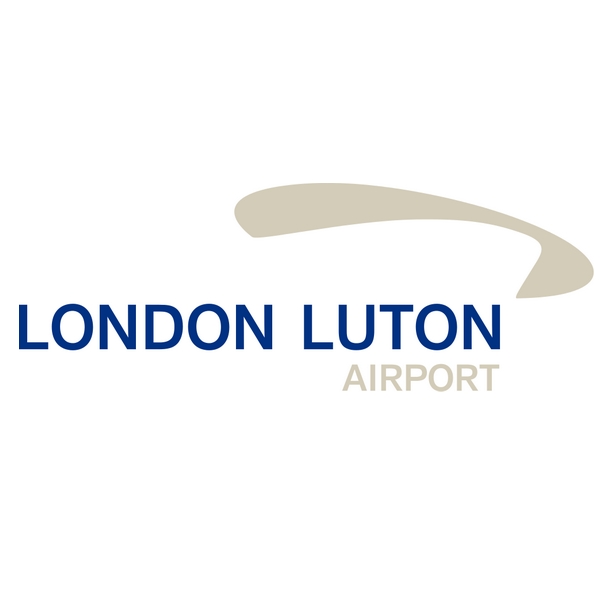
Luton Airport Font
AirlineLuton Airport is a major international airport located in the town of Luton, in the county of Bedfordshire, England. It is the fifth busiest airport in the United Kingdom, serving over 18 million passengers annually.
The Luton airport's logo is likely written in the Akzidenz Grotesk Next Medium font. This Berthold typeface, created by Bernd Möllenstädt and Dieter Hofrichter, has revised x-heights and weights throughout the family, resulting in a more unified type design. More details about the typeface can be found here.